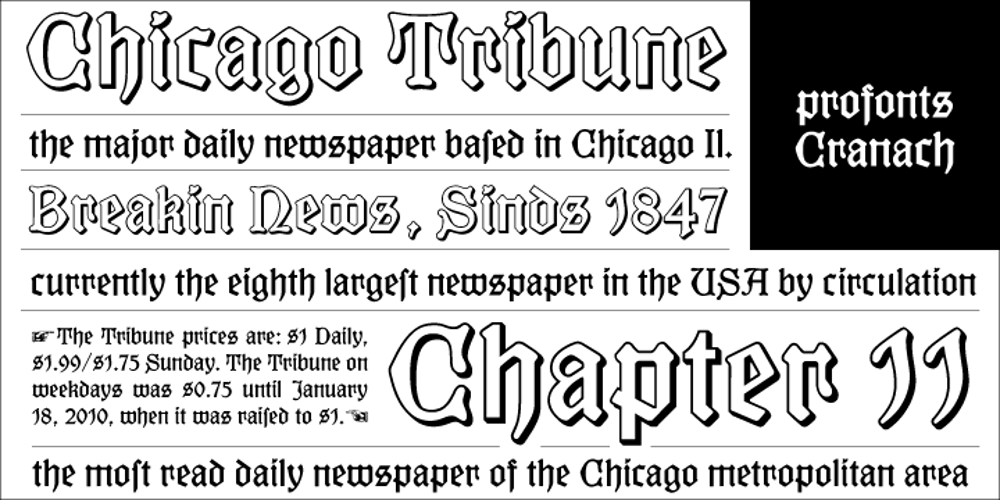
Cranach Font Family was designed by Ralph M. Unger and published by profonts. Cranach contains 2 styles and family package options. This picturesque, beautiful German Blackletter typeface was originally released by Benjamin Becker Succ, Frankfurt am Main, then named ?K�nstlergotisch?. Ralph M. Unger redesigned, digitally remastered and completed the font based on old catalogues/specimen. In honor of the famous Cranach family, German artists in medieval times, we renamed the font after them. The shadowed version was added for even more eye-catching purposes, e.g. in headlines.